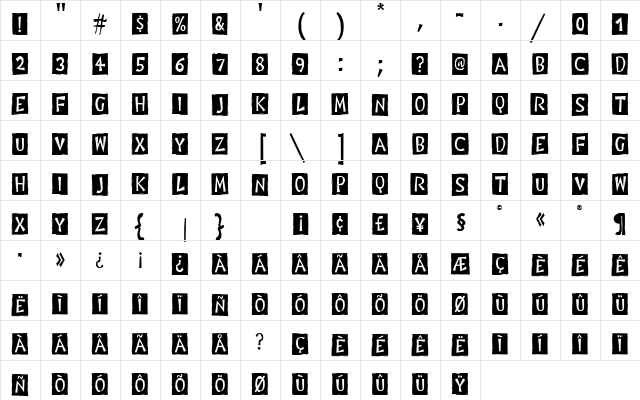
Digital Woodcuts Black ITC TT Regular
Design Context for Digital Woodcuts Black ITC TT Typeface
Digital Woodcuts Black ITC TT taps into classic Western woodtype traditions — bold, characterful, and impossible to ignore.
Perfect for barbecue restaurants, country music branding, vintage poster design, and rustic packaging.
Font Pairing: Combine Digital Woodcuts Black ITC TT with a simple slab or neutral sans — period-accurate companions reinforce the vintage feel without competing for attention.
Pro Tip: Pair Digital Woodcuts Black ITC TT with aged textures or distressed backgrounds to amplify its vintage personality.